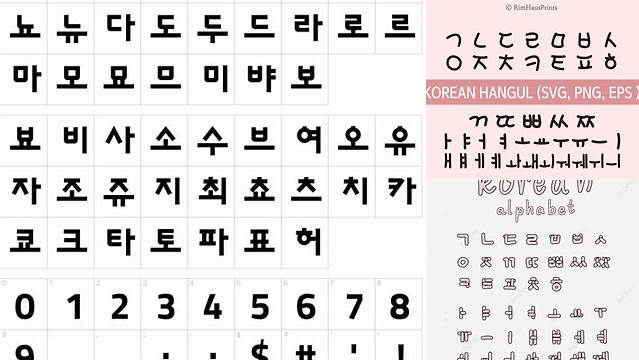
Are you looking to download Korean alphabet fonts for free? You've come to the right place, guys! Whether you're a student learning Korean, a designer working on a project with Korean text, or just someone fascinated by the beautiful Hangul script, finding the right font can make a huge difference. This article will guide you through everything you need to know about Korean fonts, where to find them, and how to use them effectively. We'll also delve into the nuances of Korean typography and how to choose fonts that are both aesthetically pleasing and functionally appropriate for your needs. So, let's dive in and explore the world of Korean fonts!
Understanding Korean Fonts (Hangul)
Before we jump into downloading fonts, let's understand what makes Korean fonts unique. The Korean alphabet, known as Hangul, is a wonderfully systematic and phonetic writing system. Unlike pictographic scripts like Chinese characters (Hanja), Hangul characters are composed of individual elements called jamo that represent consonants and vowels. These jamo are combined into syllable blocks, giving Korean text a distinctive visual appearance. Understanding this structure is crucial when selecting fonts, as different fonts can significantly impact the readability and aesthetic appeal of your text.
When choosing a font, consider its overall style. Some fonts have a more traditional, calligraphic feel, mimicking brushstrokes used in handwriting. These fonts are excellent for formal documents, artistic projects, or when you want to evoke a sense of history and tradition. On the other hand, modern sans-serif fonts offer a clean and contemporary look, making them ideal for websites, presentations, and other digital media. The weight (thickness) and spacing of the font are also important factors. A heavier font might be suitable for headlines and titles, while a lighter font is generally preferred for body text to ensure readability. The spacing between characters and lines should be adequate to prevent the text from looking cramped or cluttered. Furthermore, ensure that the font supports all the Hangul characters you need. Some fonts may have limited character sets, which can lead to missing glyphs or display issues. It's always a good idea to test the font with a sample of your text to confirm that all characters render correctly. By paying attention to these details, you can select a Korean font that not only looks great but also enhances the overall impact of your message.
Different styles of Korean fonts convey different moods and tones. For instance, a rounded, playful font might be perfect for a children's book or a casual website, while a sharp, angular font could be more appropriate for a business presentation or a formal document. The key is to match the font's personality with the message you're trying to communicate. Moreover, consider the context in which the font will be used. A font that looks stunning on a poster might be difficult to read on a small screen, and vice versa. Think about the target audience and the medium of communication. A font that appeals to a younger demographic might not resonate with an older audience, and a font designed for print might not translate well to the web. Ultimately, the best Korean font is one that not only looks beautiful but also serves its intended purpose effectively.
Where to Find Free Korean Alphabet Fonts
Google Fonts: Google Fonts is a fantastic resource for free, open-source fonts, including a growing selection of Korean fonts. The fonts are high-quality, easy to use, and compatible with various platforms. Plus, you can easily embed them on your website using Google's font API. The advantage of using Google Fonts is that they are optimized for web use, meaning they load quickly and display correctly across different browsers and devices. You can also preview the fonts in different sizes and styles before downloading them, making it easier to find the perfect match for your project.
Naver's Naver D2 Coding Font: Naver, a major South Korean internet portal, offers the Naver D2 Coding Font, which is specifically designed for coding environments. It's a monospaced font, meaning each character has the same width, which is crucial for code readability. However, it's also a versatile font that can be used for other purposes. This font is a great option if you're looking for a clean and modern font that's easy on the eyes, especially if you're working with code or technical documents. Naver D2 Coding Font supports not only Hangul but also Latin characters, numbers, and symbols, making it a comprehensive choice for various applications.
Daum Fonts: Daum, another popular South Korean web portal, also provides a selection of free fonts. While the selection might not be as extensive as Google Fonts, you can often find unique and stylish fonts here that aren't available elsewhere. Exploring different sources like Daum Fonts is beneficial because it allows you to discover fonts that have a distinct personality and may better suit your specific project needs. Remember to check the licensing terms for each font to ensure it's free for your intended use, whether it's for personal or commercial projects.
Font Sites with Korean Sections: Many font websites, such as DaFont, Font Squirrel, and 1001 Fonts, have dedicated sections for Korean fonts. These sites often feature a mix of free and commercial fonts, so be sure to filter your search accordingly. These font websites are excellent resources because they aggregate fonts from various designers and foundries, providing a wide range of styles and options. However, it's crucial to exercise caution and verify the licensing terms for each font you download. Some fonts may be free for personal use but require a license for commercial projects. Always double-check the terms to avoid any copyright infringements.
Asian Font Resources: Websites specializing in Asian fonts, like Asian Font Converter, often have a collection of free Korean fonts. These resources can be particularly helpful if you're looking for fonts that support multiple Asian languages. Using Asian font resources can be advantageous if your project involves text in Korean and other Asian languages, such as Chinese or Japanese. These websites often offer fonts that are designed to work harmoniously across different scripts, ensuring a consistent and visually appealing look. However, similar to other font websites, always verify the licensing terms before using any font in your project.
Finding the perfect Korean alphabet font can enhance your projects significantly. With the resources mentioned above, you can download free fonts and create stunning designs. Remember to consider readability, context, and licensing when choosing and using fonts. Happy designing, guys! This comprehensive guide should help you navigate the world of Korean fonts with ease, enabling you to create visually appealing and effective designs. By understanding the nuances of Hangul typography and utilizing the available resources, you can confidently select and use Korean fonts in your projects, whether they are for personal or commercial purposes. Always stay mindful of font licensing and strive to create designs that are both beautiful and functional. With these tips and resources, you're well-equipped to explore the diverse landscape of Korean fonts and elevate your creative endeavors.